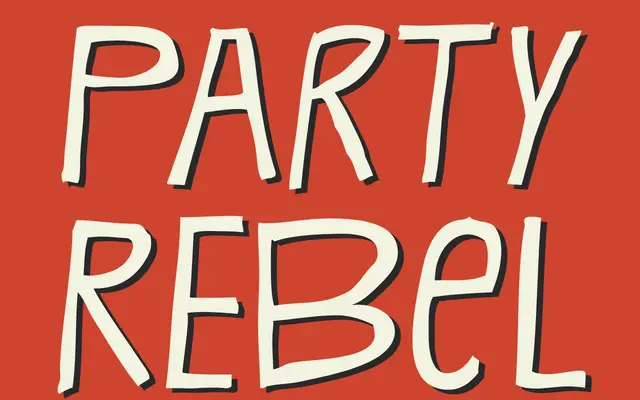
CA Rebel Party Rebel
Cape Arcona · Thomas Schostok
A two-style handmade display typeface born from a story of rage and a thrown television, offering a thin and a fat cut for deliberately irreverent typography.
Created by Thomas Schostok under reportedly furious circumstances, the family comes in just two styles: CA PartyRebel, a thin cut, and CA RebelParty, a heavier counterpart. The handmade quality gives both styles an unpolished, agitated texture suited to editorial moments, poster work or anywhere a studied crudeness is the point. Western Latin coverage with 240 glyphs per style, sold as a perpetual licence for a one-time fee.
Classified as Display by the foundry; a handmade, expressive two-style typeface with a deliberately rough, rebellious character that places it firmly outside text-setting categories.